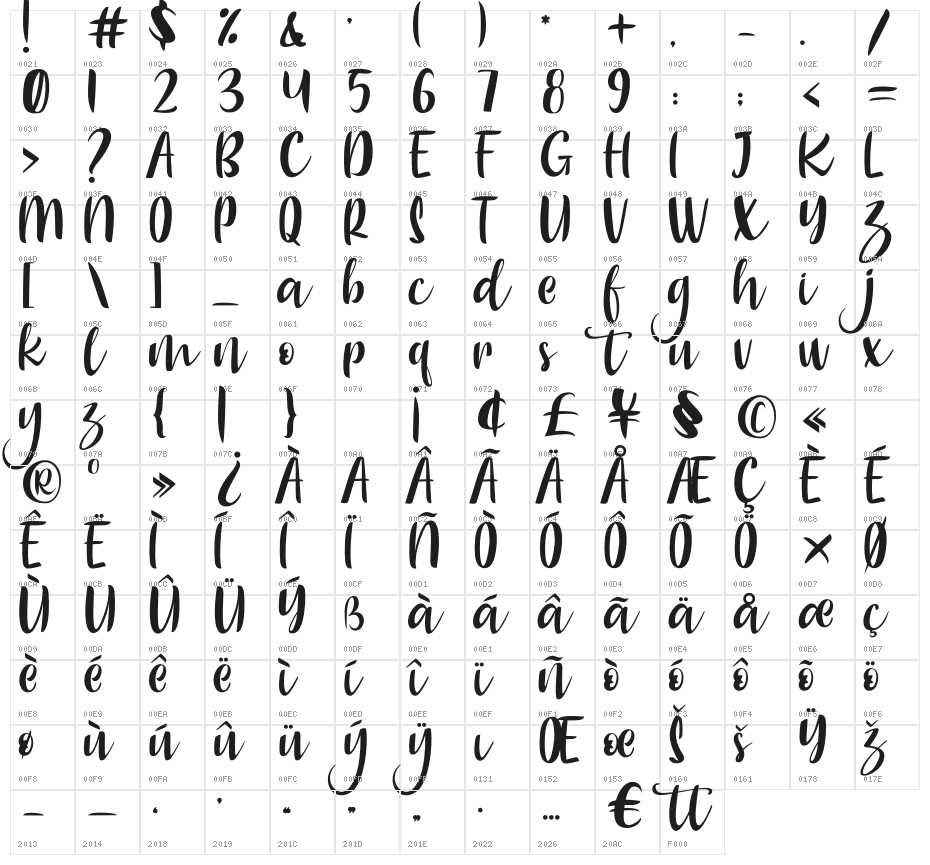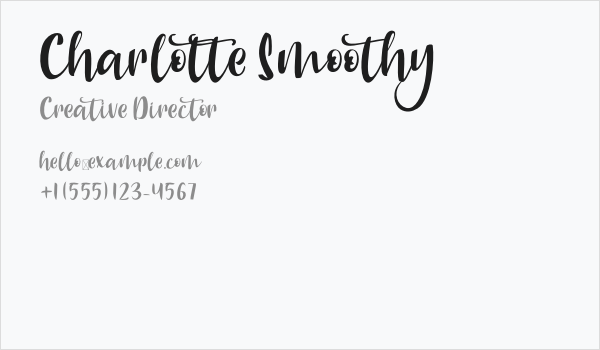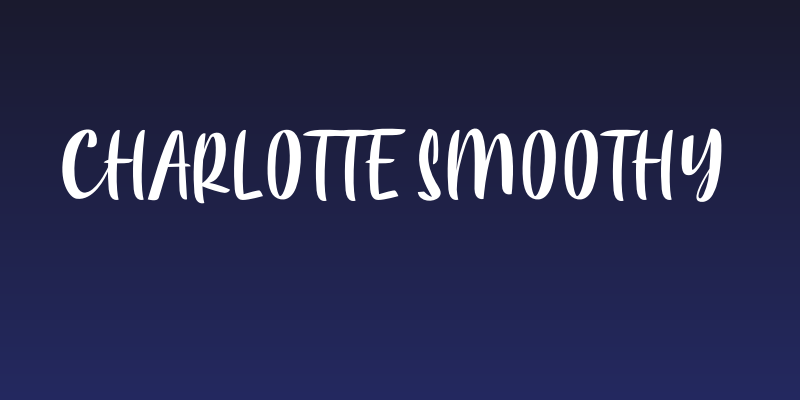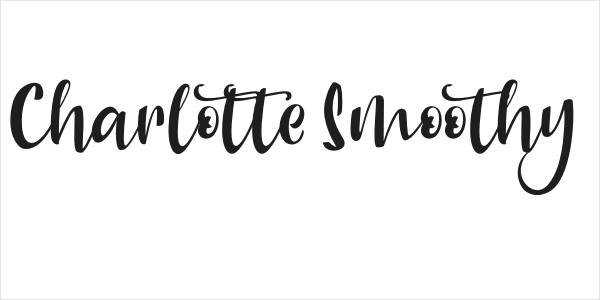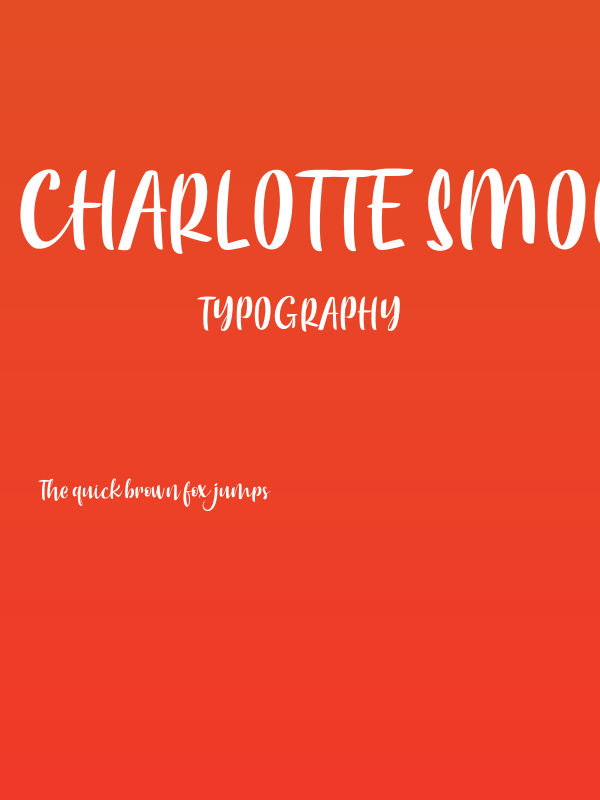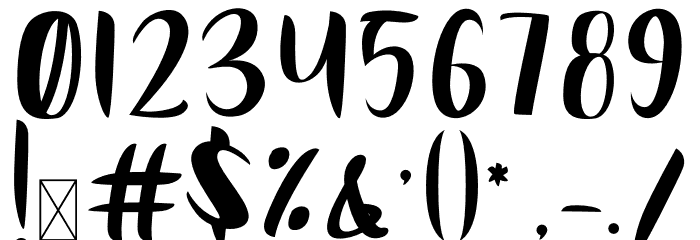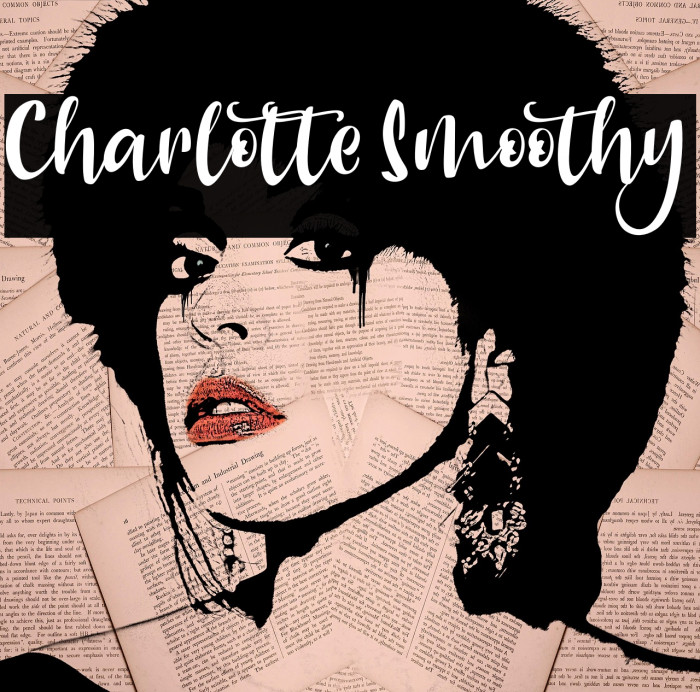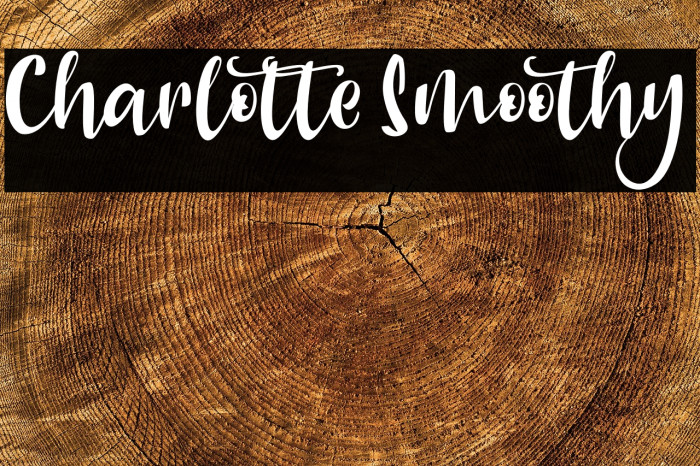
Charlotte Smoothy Font
Charlotte Smoothy Description
This font exudes a lively and dynamic energy with its smooth, flowing script style. The letters are crafted with a bold, confident stroke that gives them a strong presence, while the slight slant adds a touch of elegance and movement. The uppercase characters are tall and commanding, while the lowercase letters maintain a playful and approachable feel. The numbers are consistent with the overall style, featuring the same bold strokes and slight slant. Special characters are creatively integrated, maintaining the font's cohesive look. This font is perfect for projects that require a personal, handwritten touch, yet still demand clarity and impact.